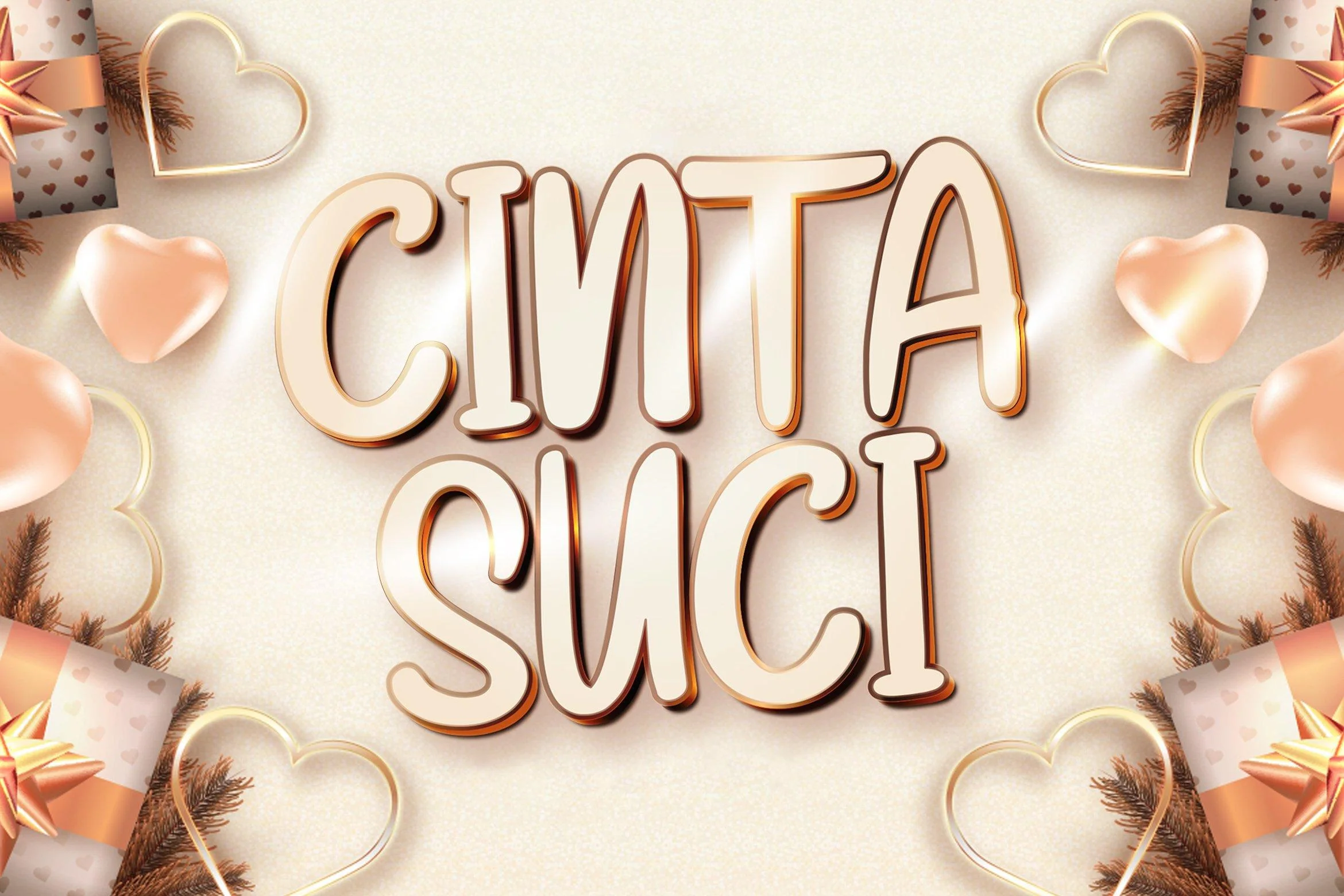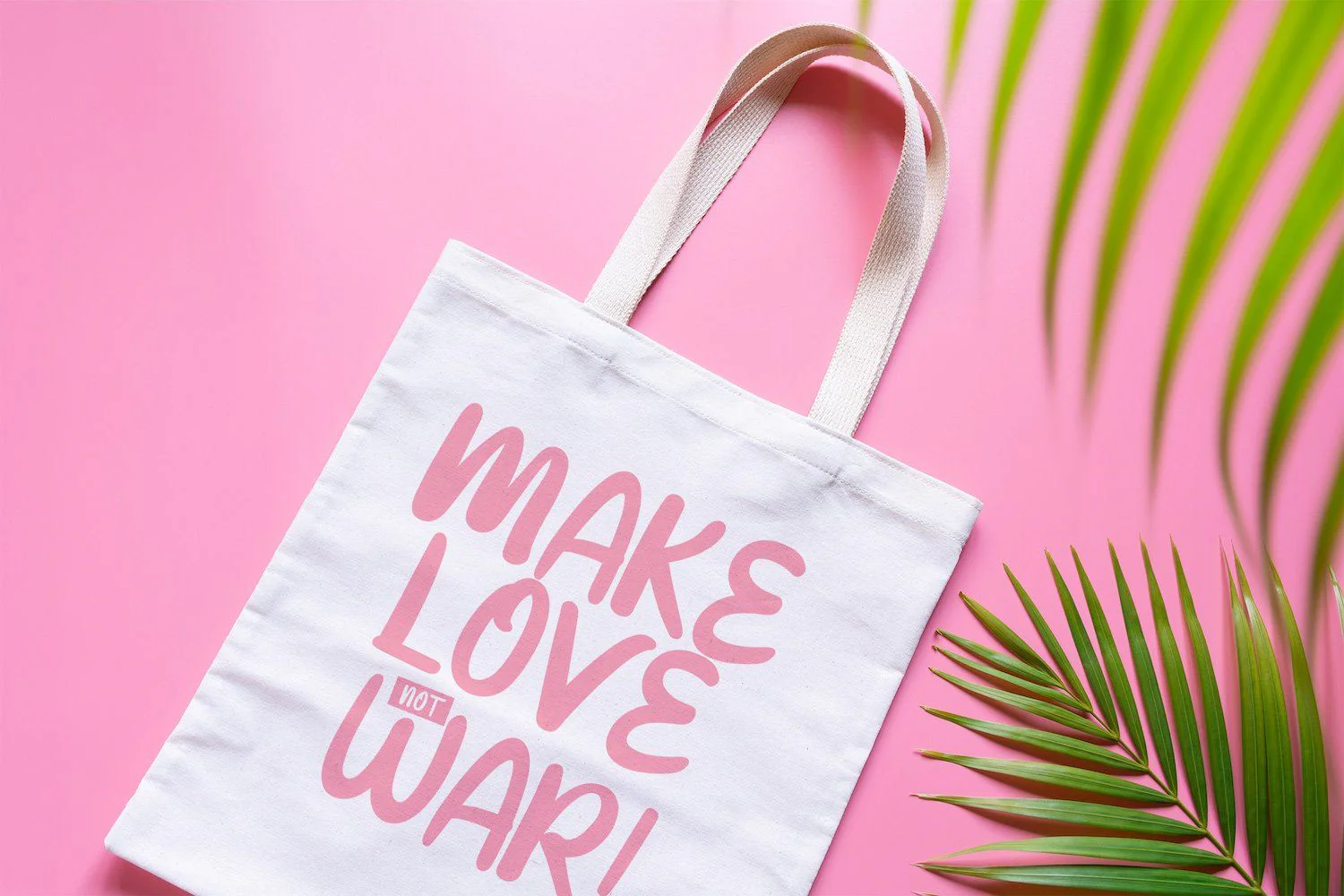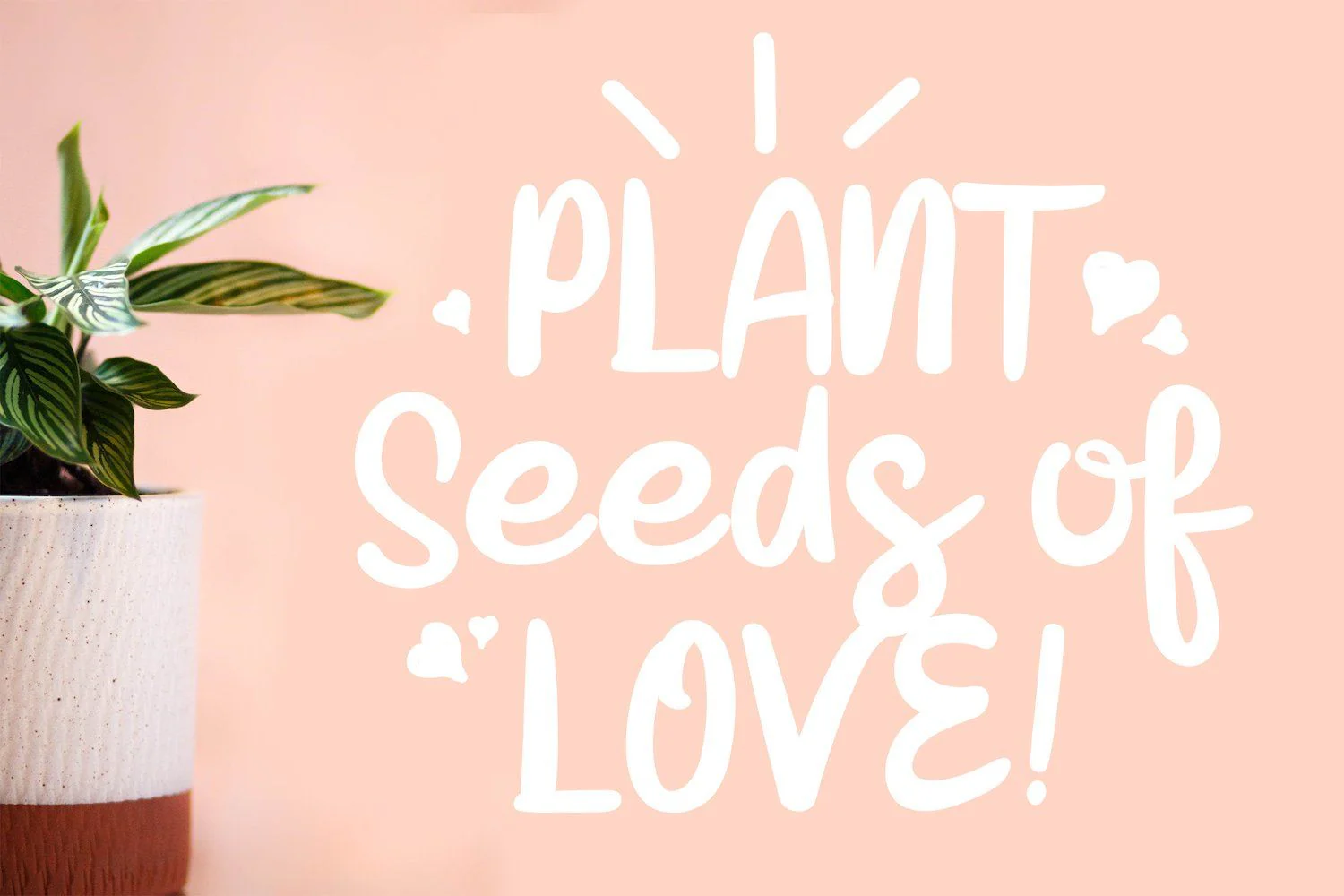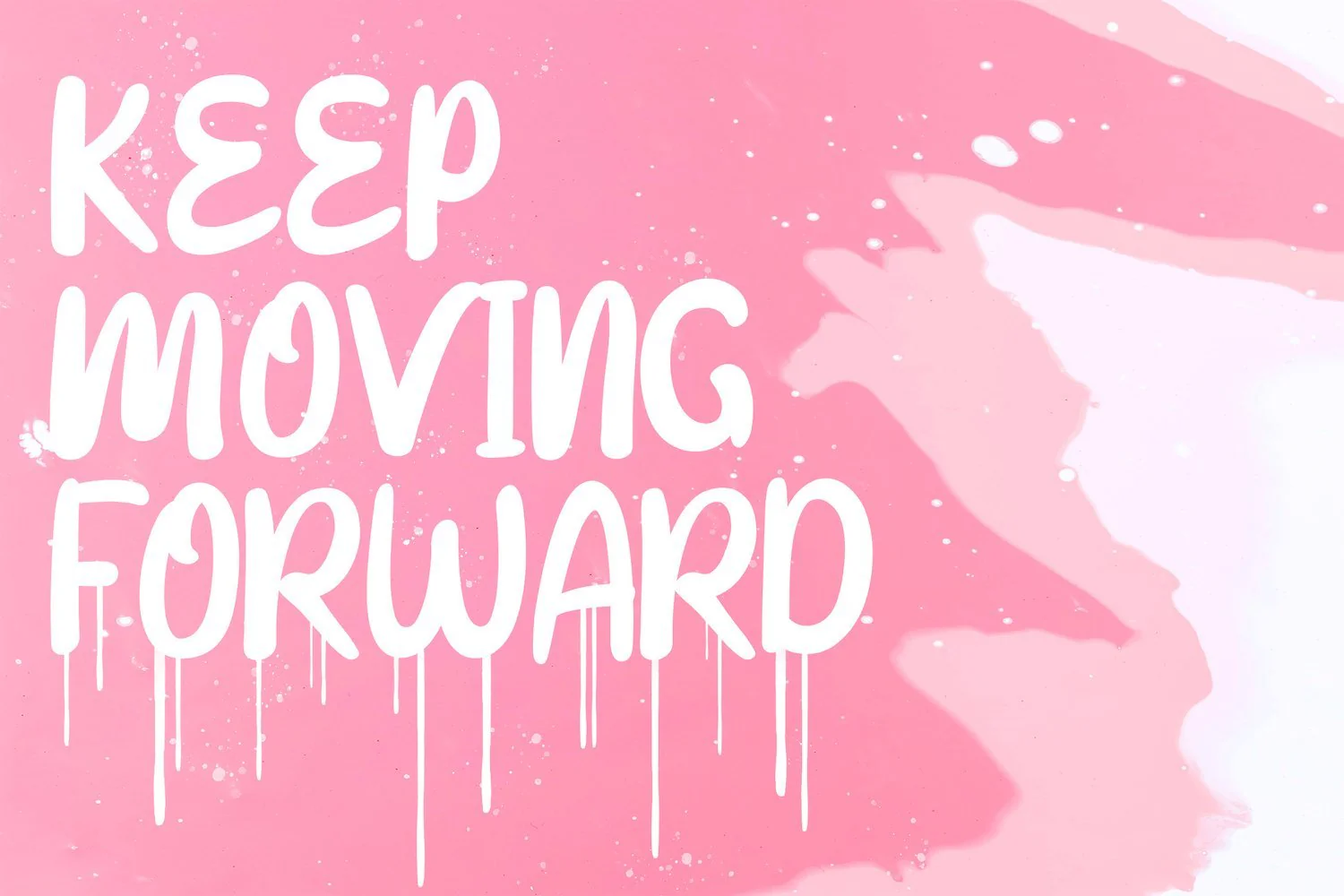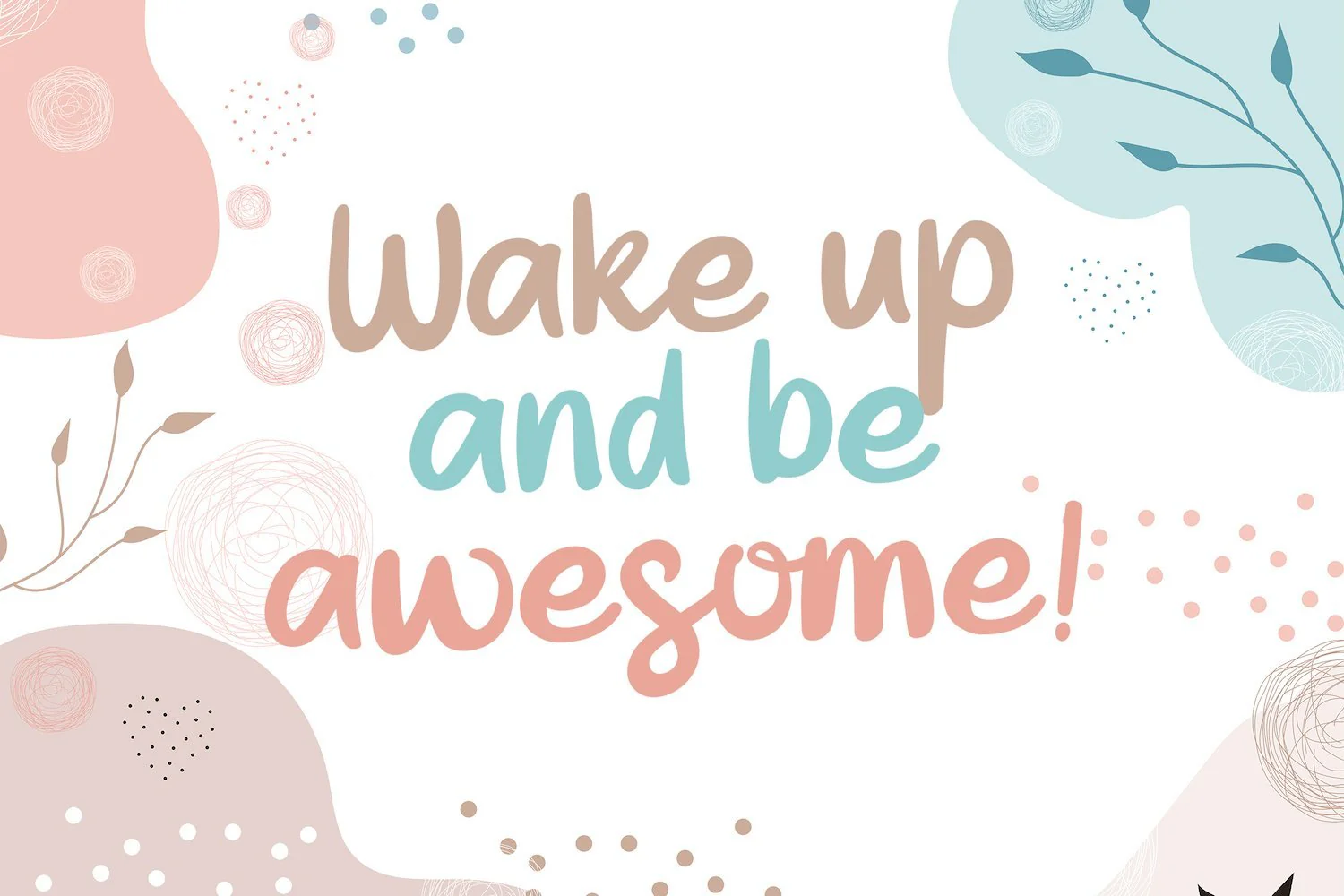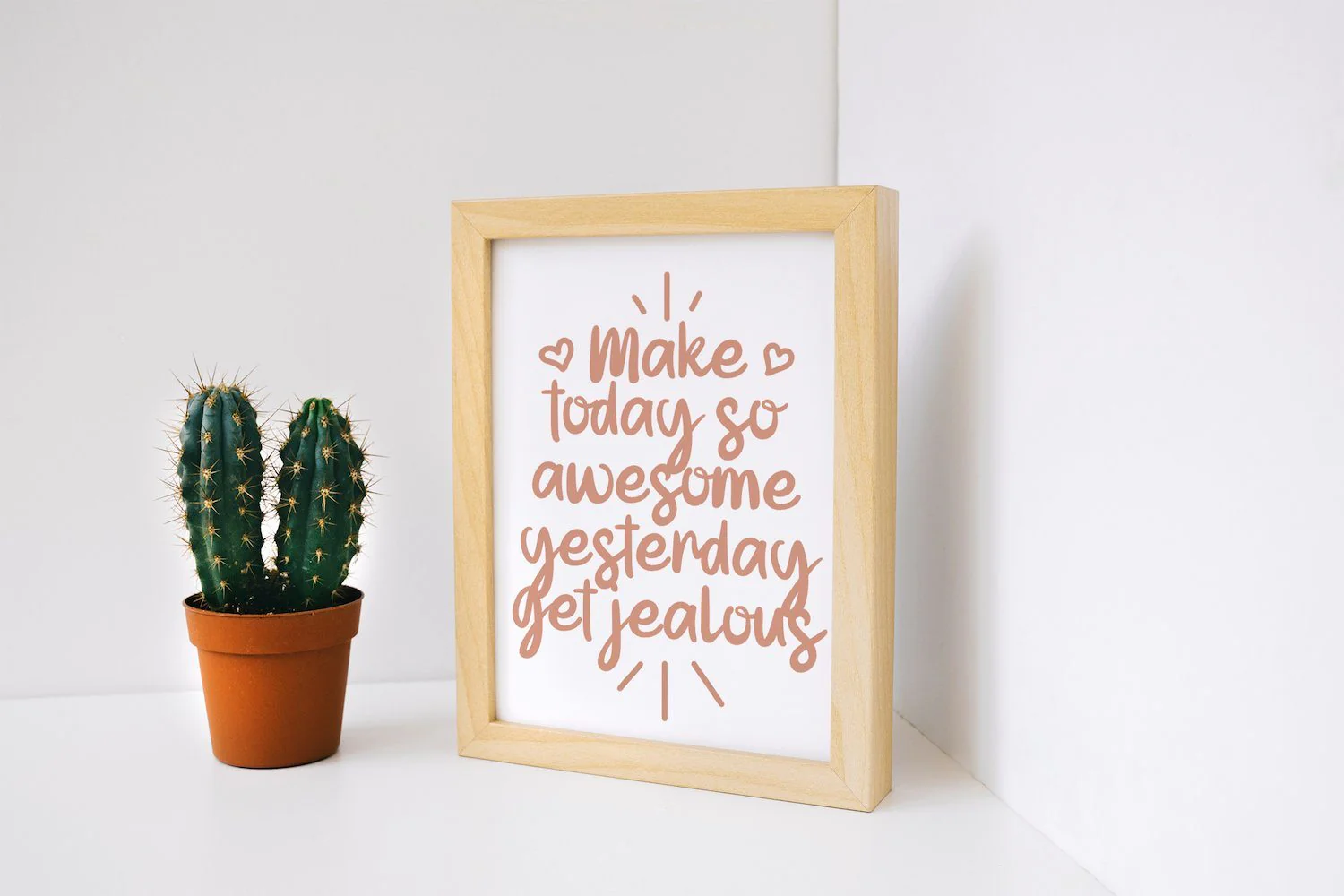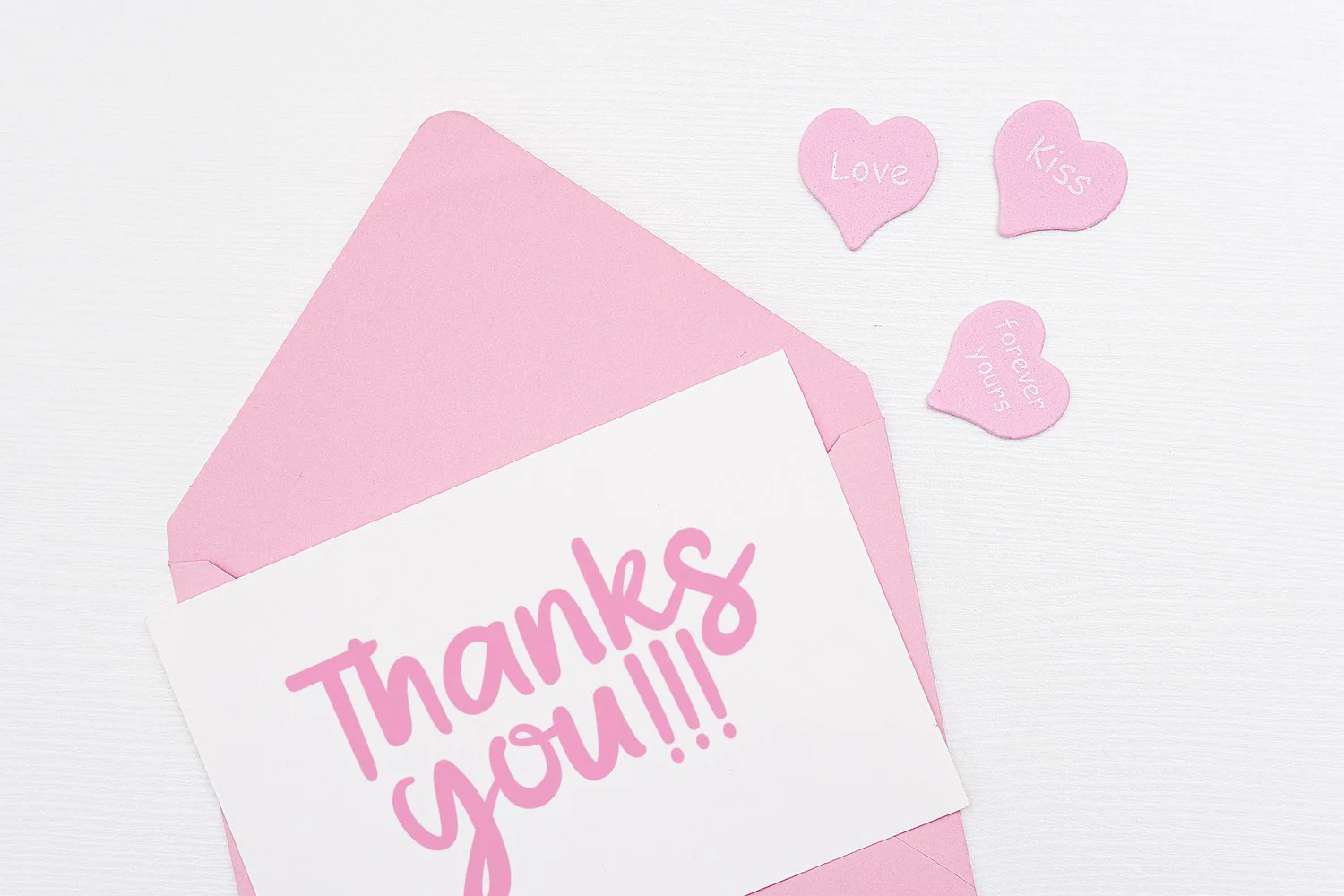
Cinta Suci - Fancy Display Font
Introducing Cinta Suci - Fancy Display Font
Cinta Suci is a fancy display font with lovely and fresh style. Cinta Suci is a versatile font that works in modern and playful designs, the possibilities are endless!
Introducing Cinta Suci - Fancy Display Font
Cinta Suci is a fancy display font with lovely and fresh style. Cinta Suci is a versatile font that works in modern and playful designs, the possibilities are endless!